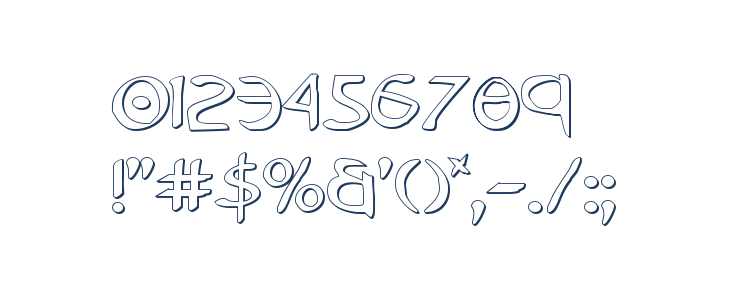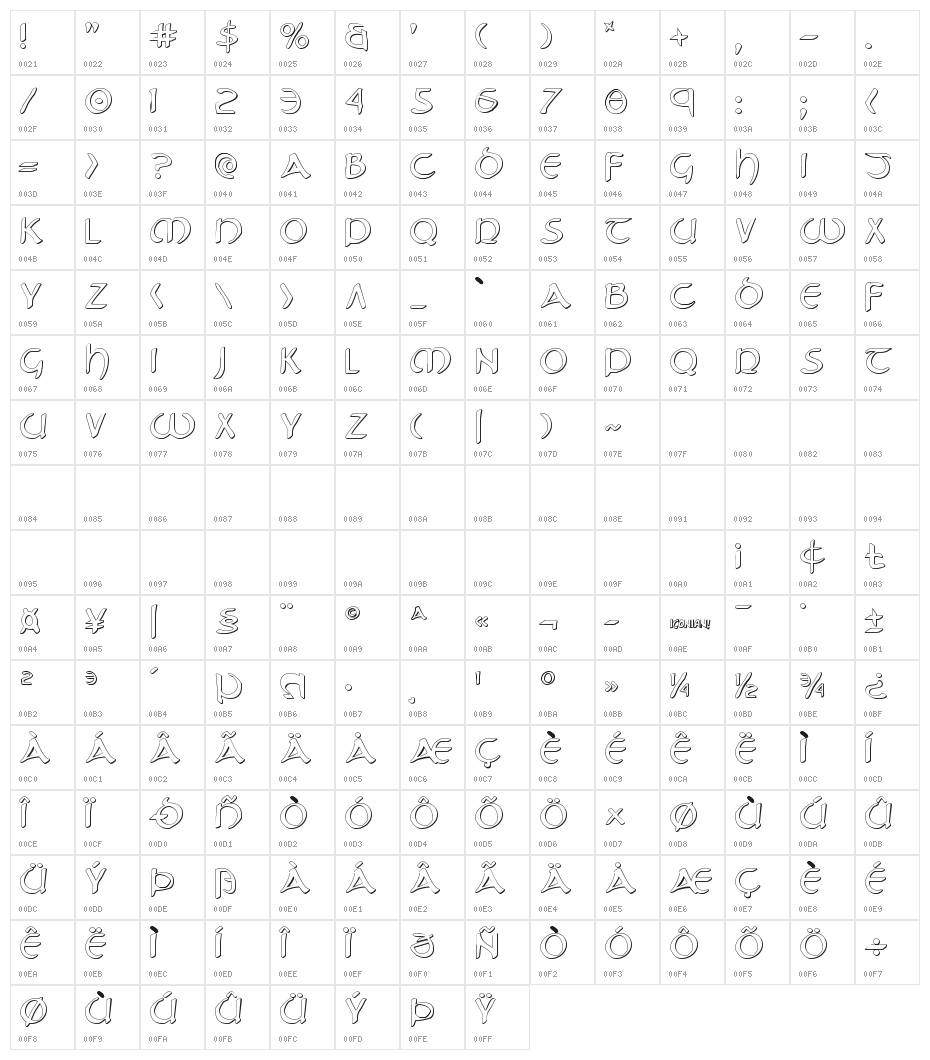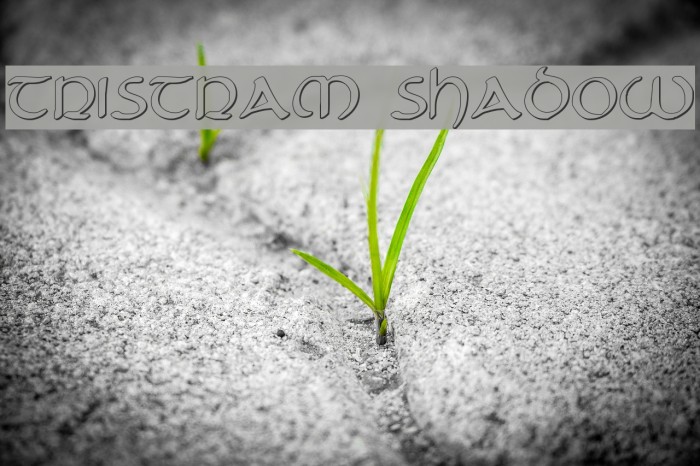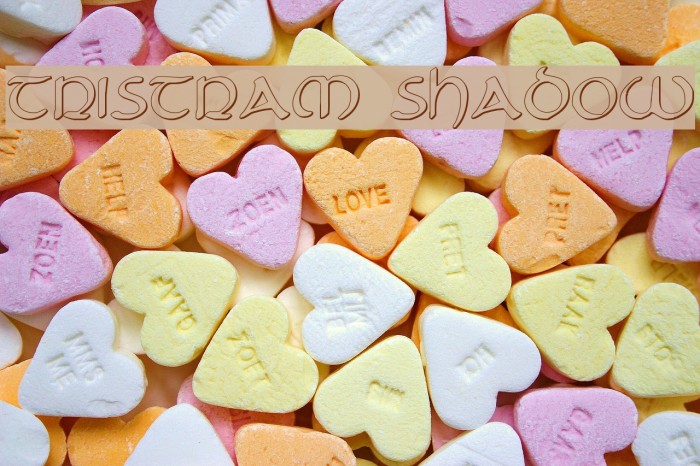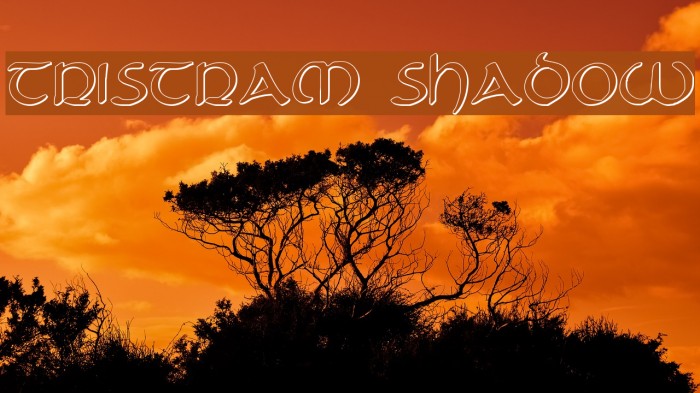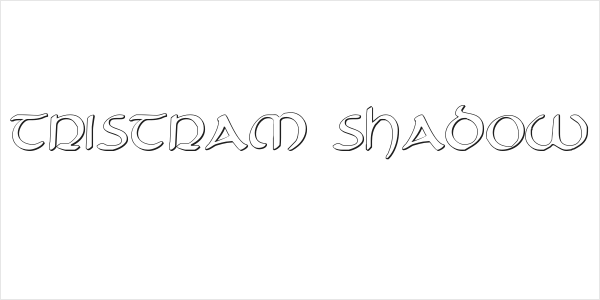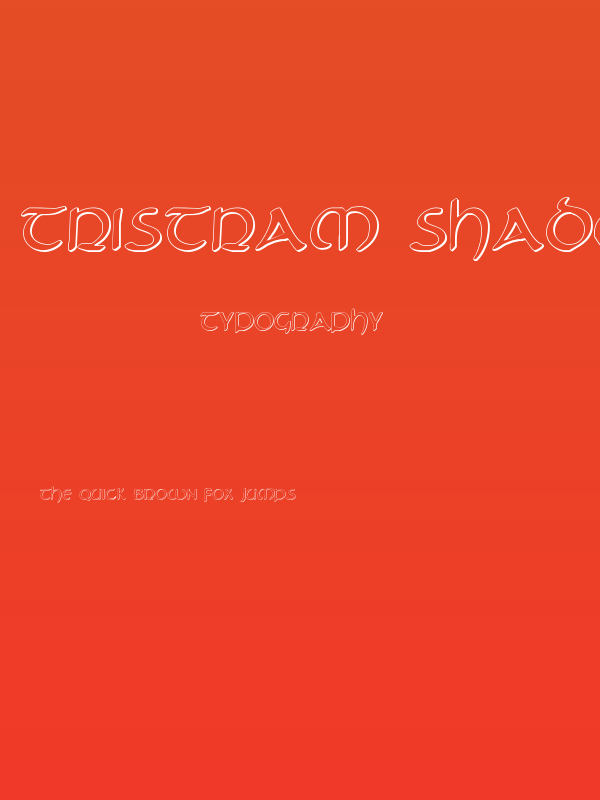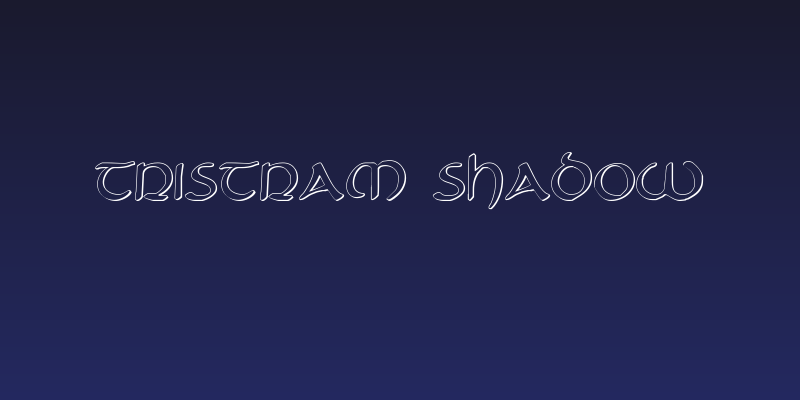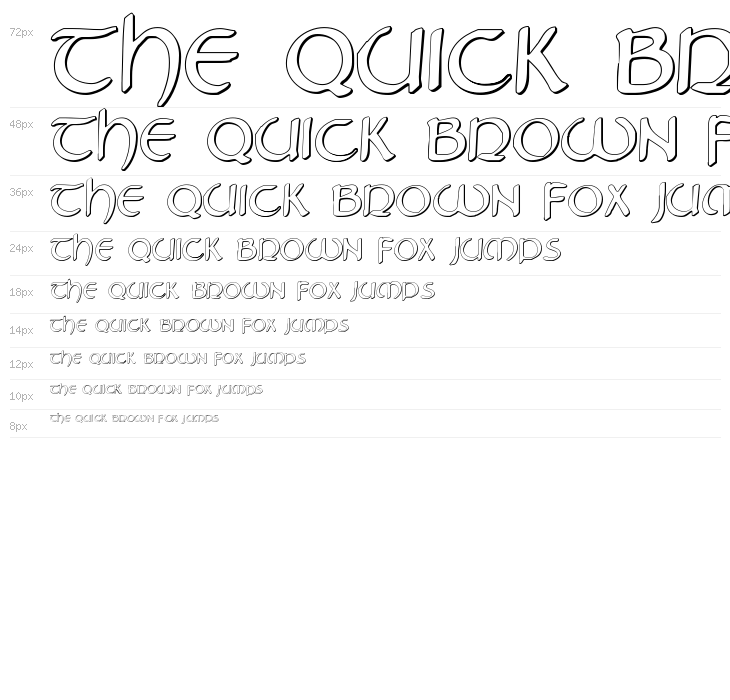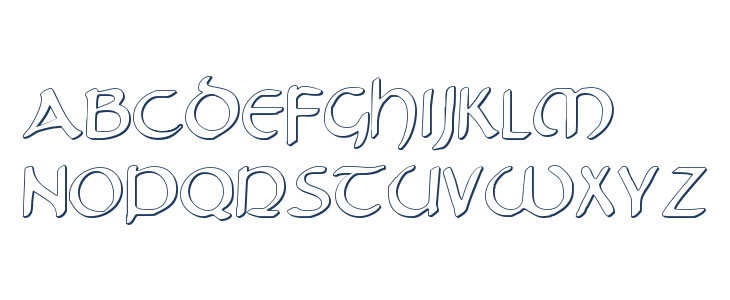
Tristram Shadow Font
Tristram Shadow Description
This font features a unique and artistic design with a shadow effect that gives each character a three-dimensional appearance. The letters are bold and have a distinct outline that enhances their visibility and impact. The style is playful and creative, making it suitable for projects that require a touch of whimsy and originality. The characters have a consistent width and height, ensuring uniformity across the text. The numbers and special characters maintain the same stylistic elements, providing a cohesive look throughout. This font is ideal for eye-catching headlines, posters, and creative designs where a bold statement is needed.
| Use Case | Headlines, Posters, Creative Designs |
| Proposed Projects | Ideal for posters, headlines, creative designs, and any project needing a bold, artistic touch. |